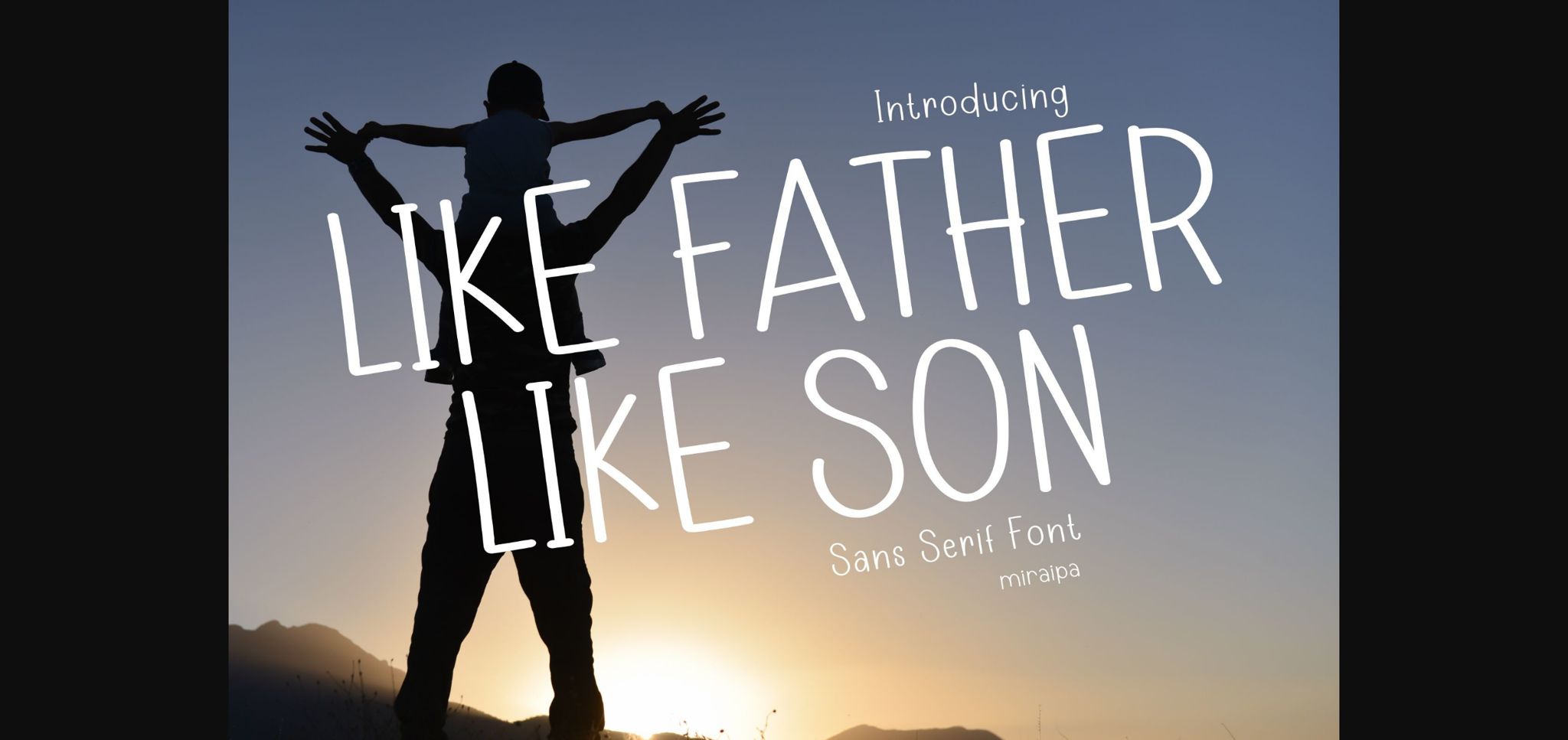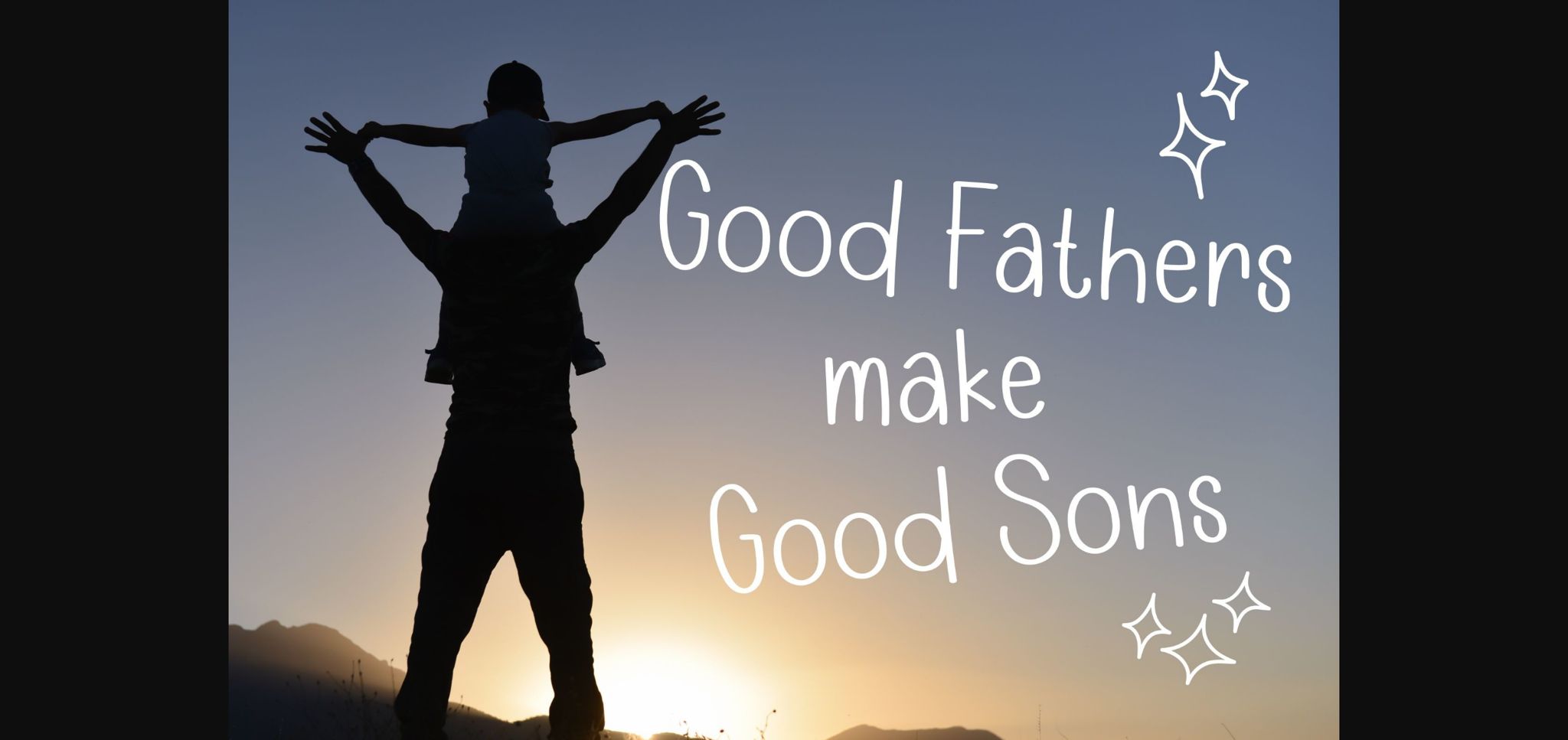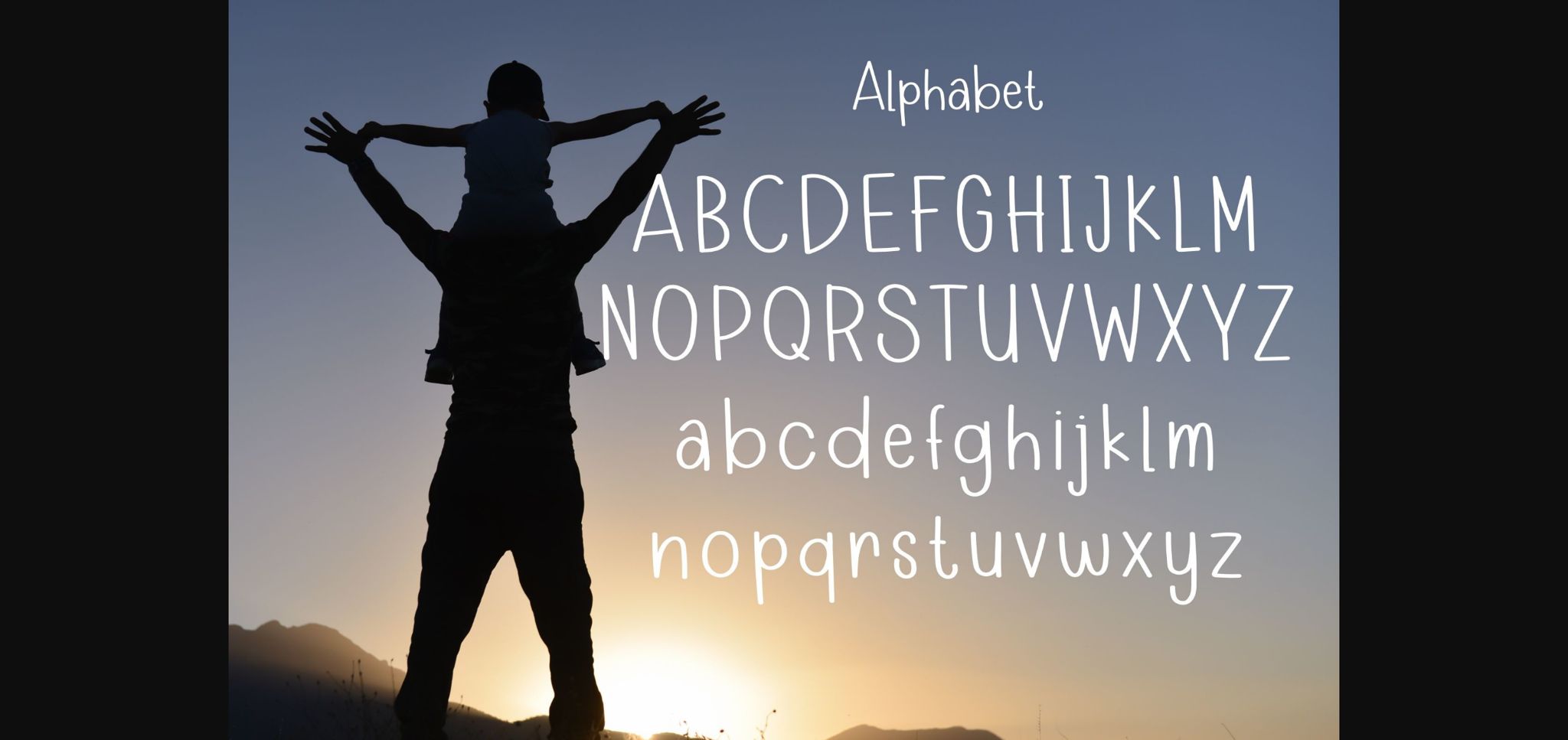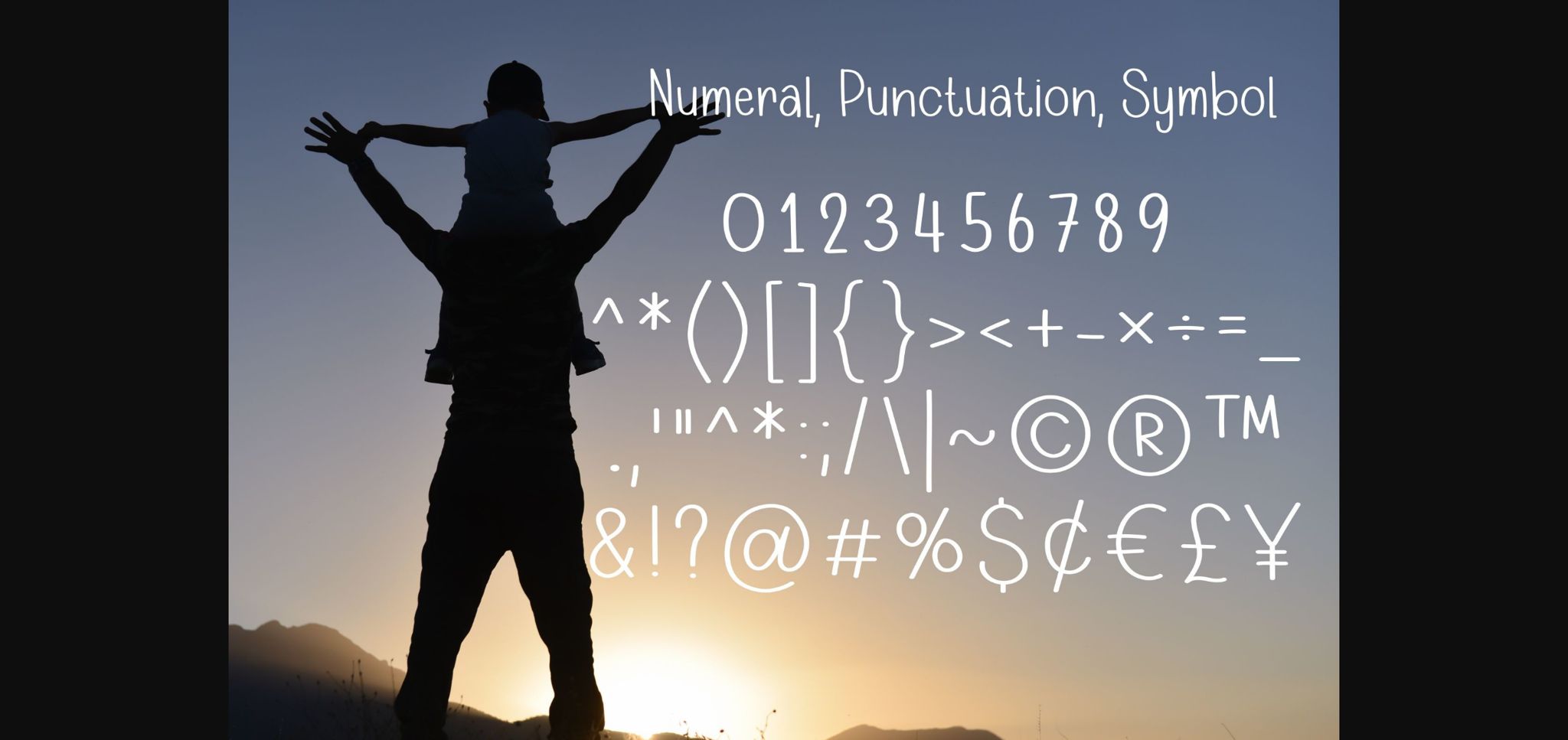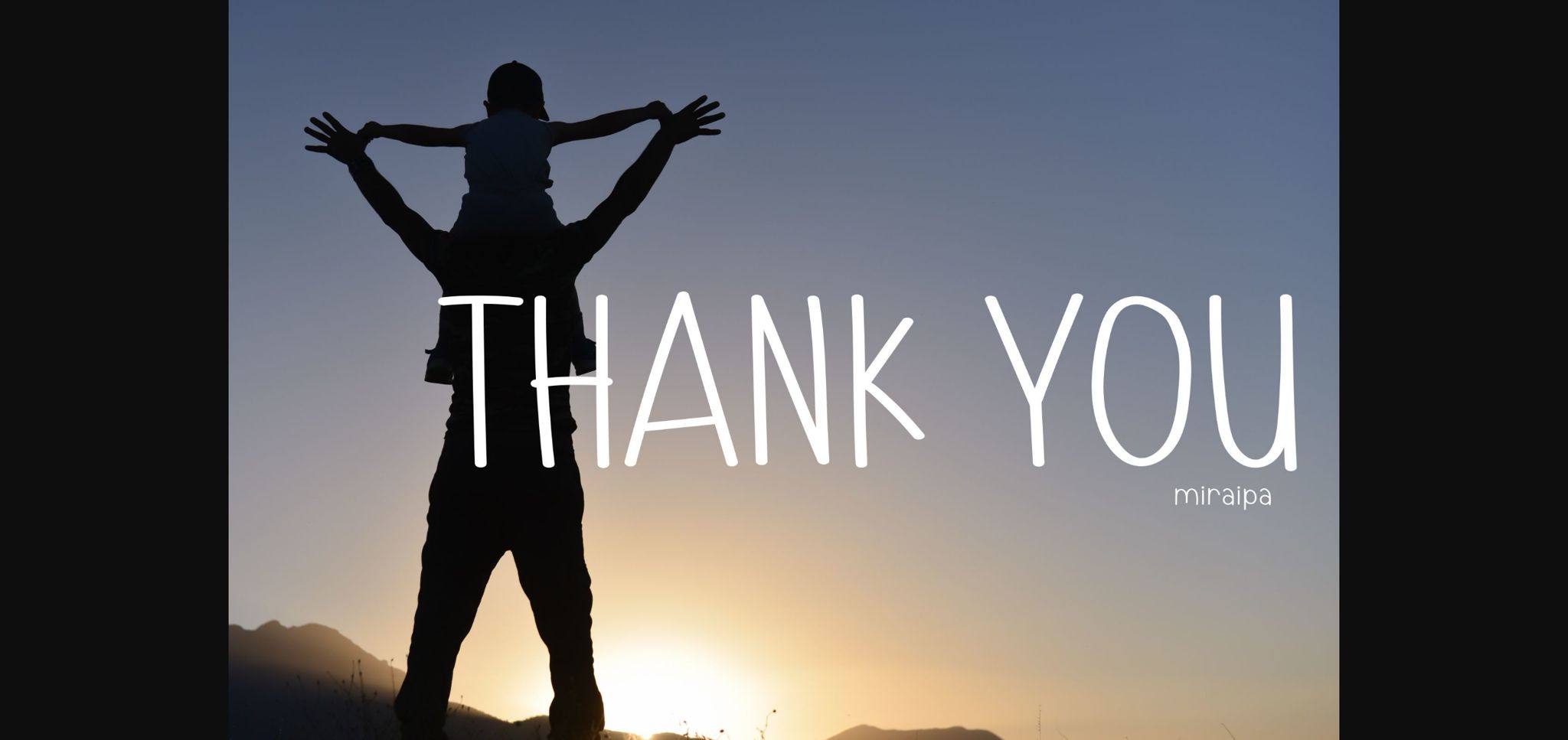
Like Father Like Son Font
Like Father Like Son is designed in a cute and friendly handwritten sans serif font style. It would be awesome for your back-to-school projects, weddings, party decorations, invitations, Fall, Halloween, Christmas, posters, blogs, clothing, child-related designs, greeting cards, social media posts, or anything that needs a friendly touch. Add it now to your fonts library, and it will bring any of your DIY projects to life.